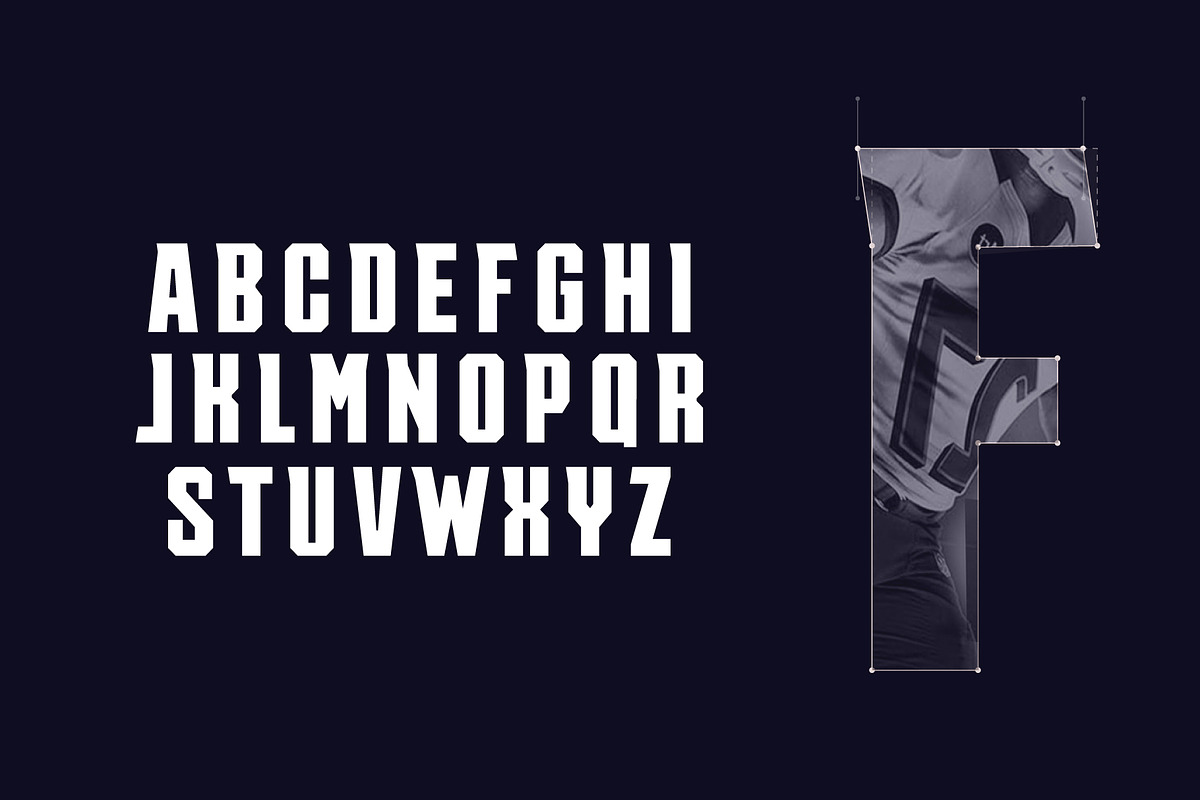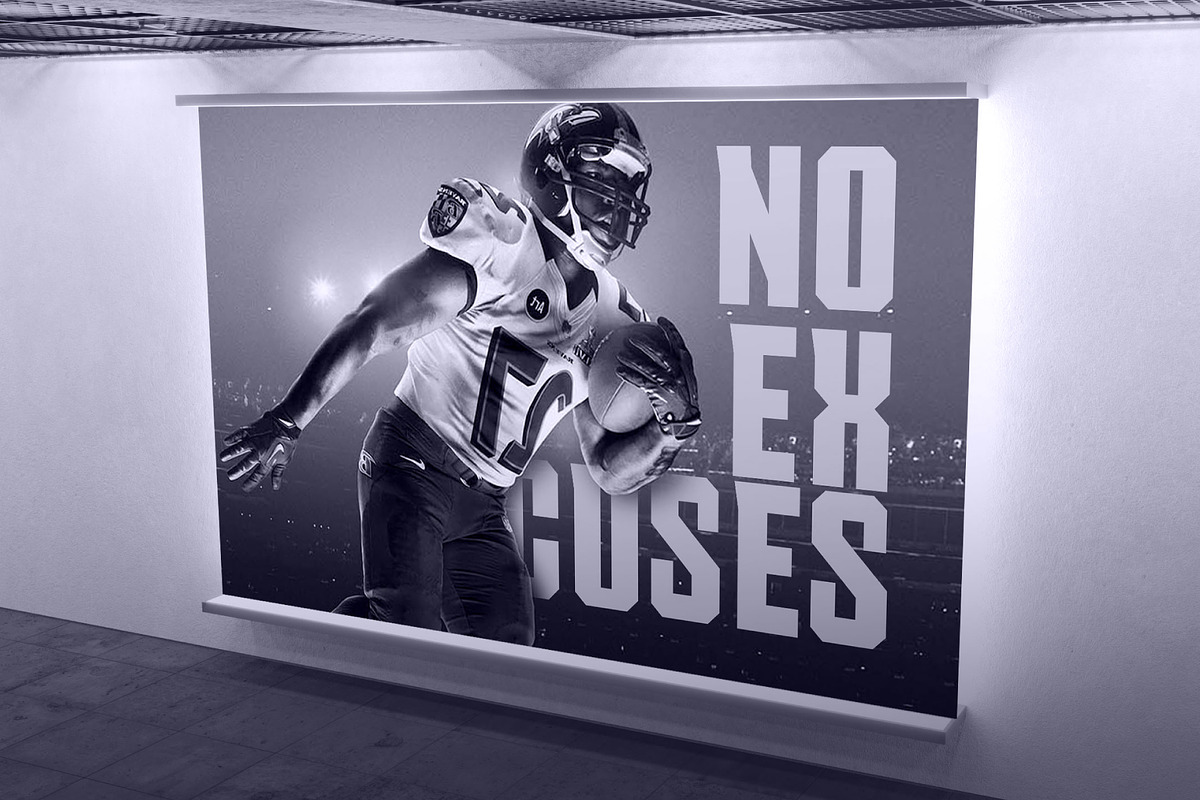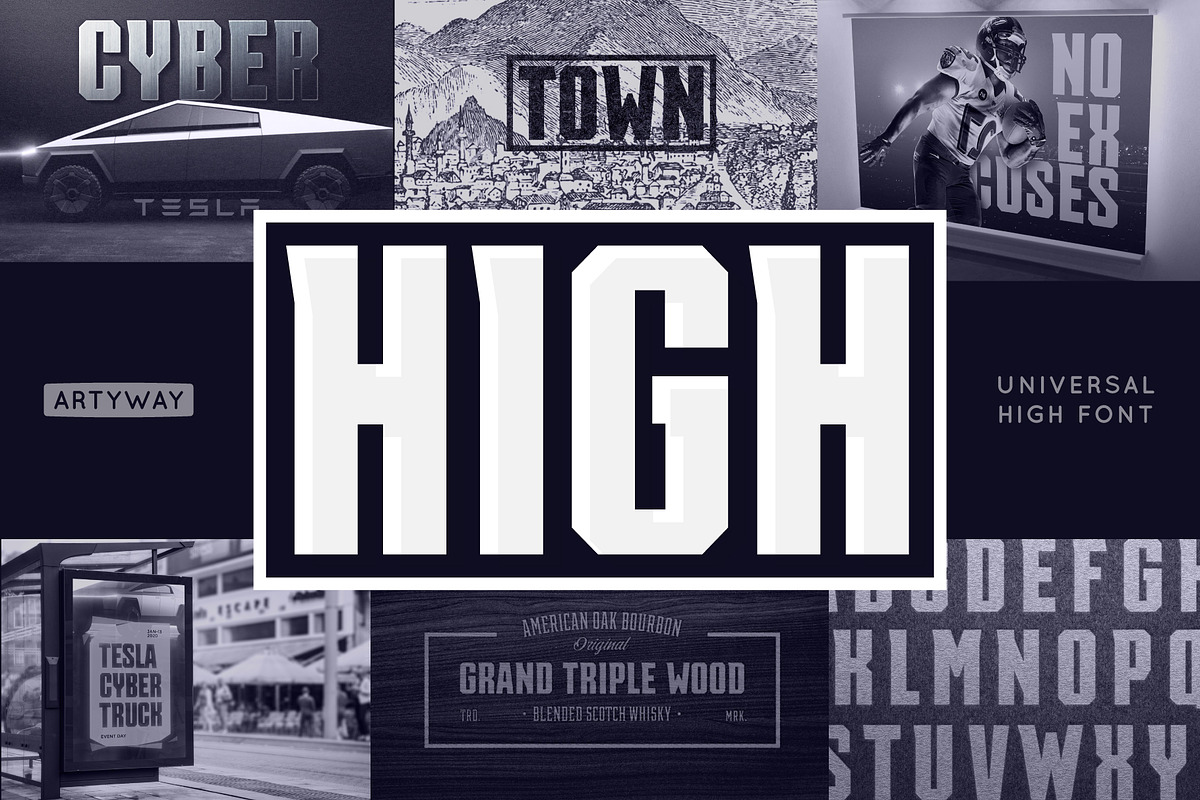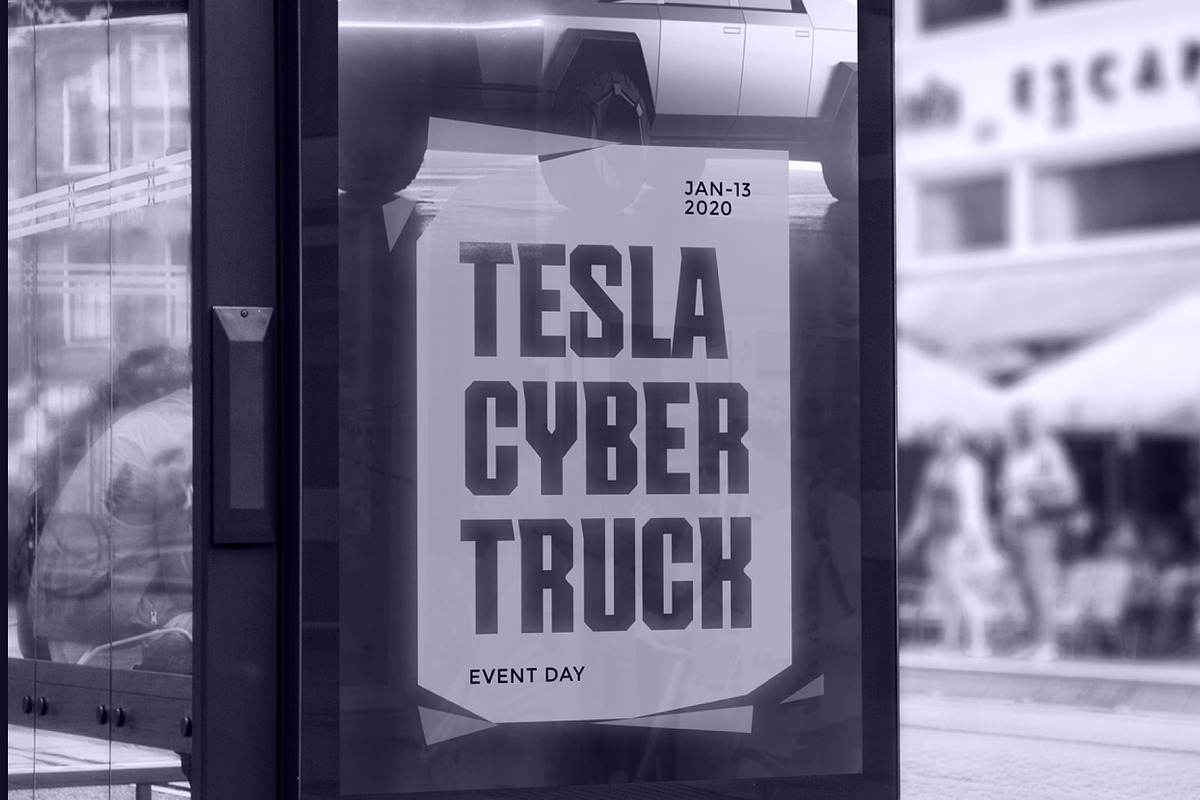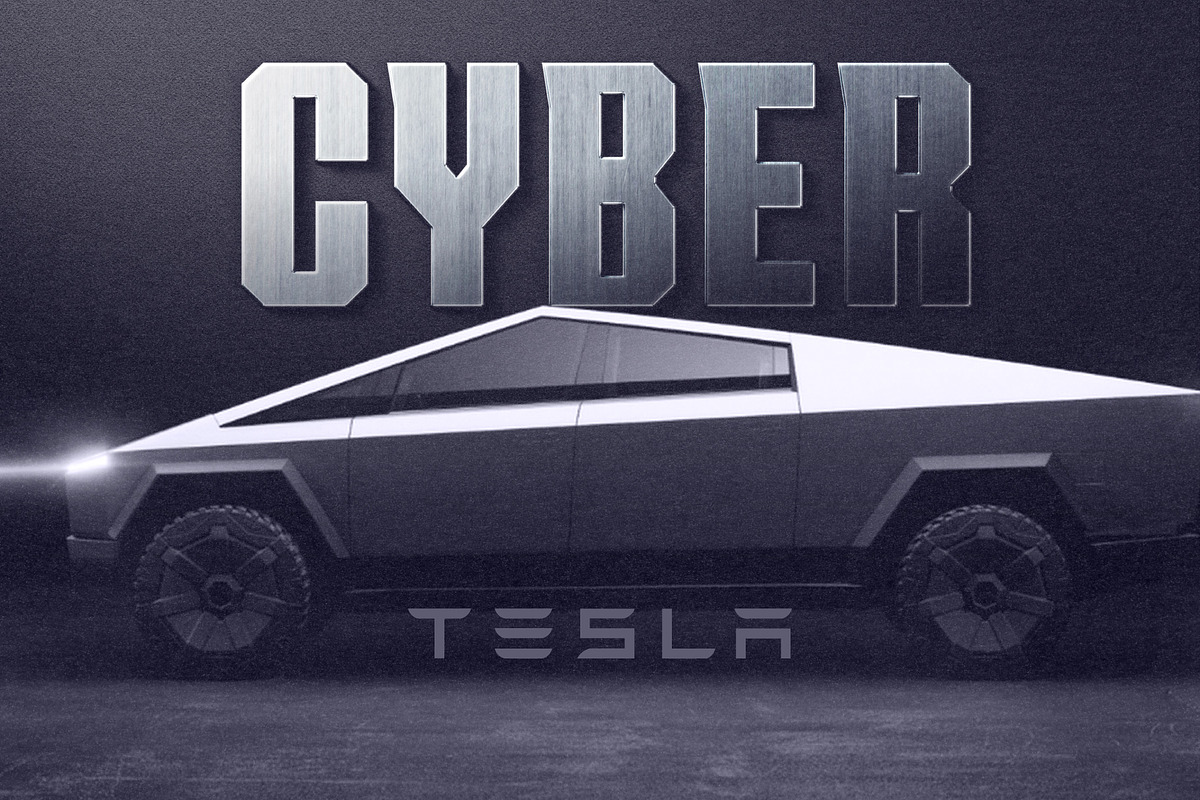
Masculinity and Hight Geometric Font
I know a lot of tall fonts, but not one of them can boast of versatility.
A new era dictates new rules!
I present to you the font "High", which combines a powerful confident look and universal practicality, from classic retro posters to cutting-edge cyberpunk.
Uppercase english letters